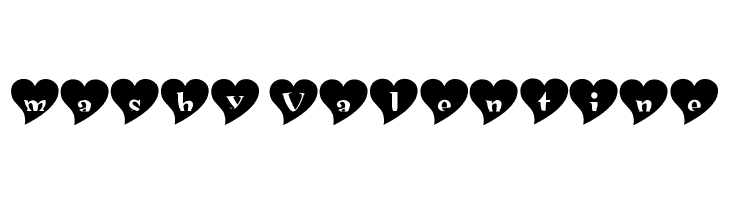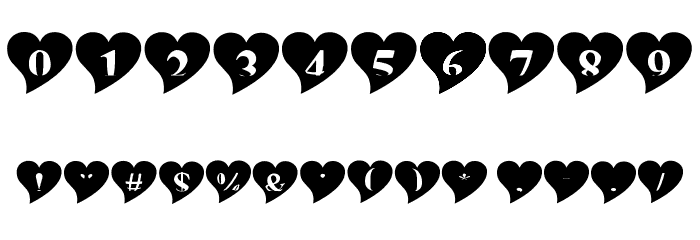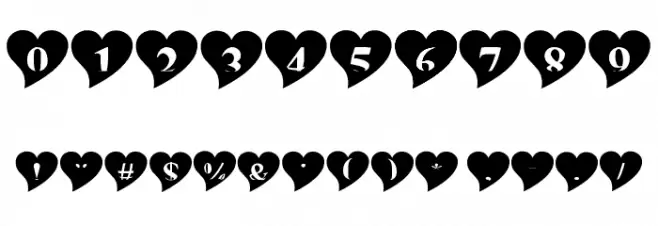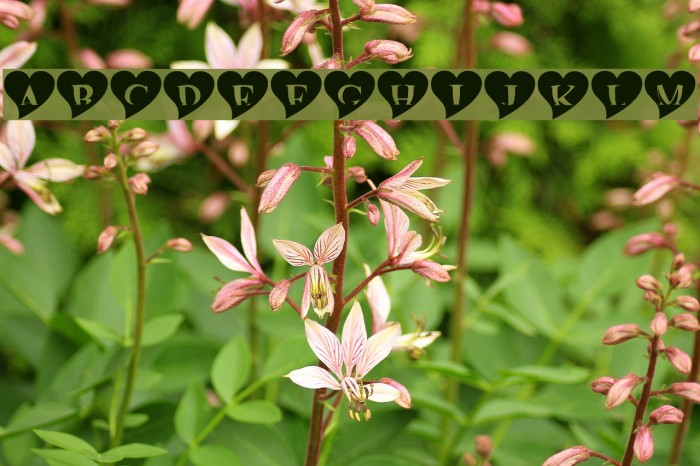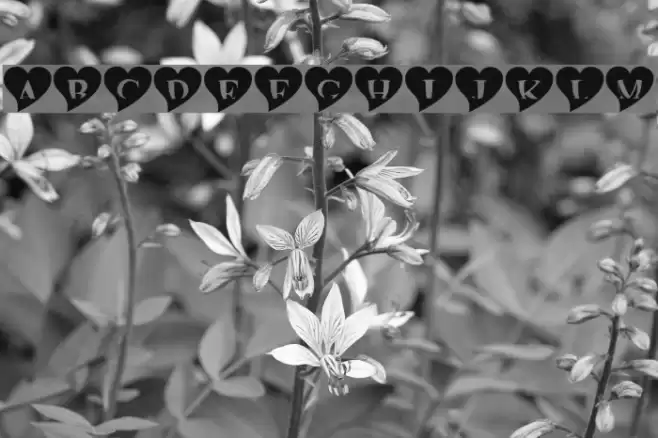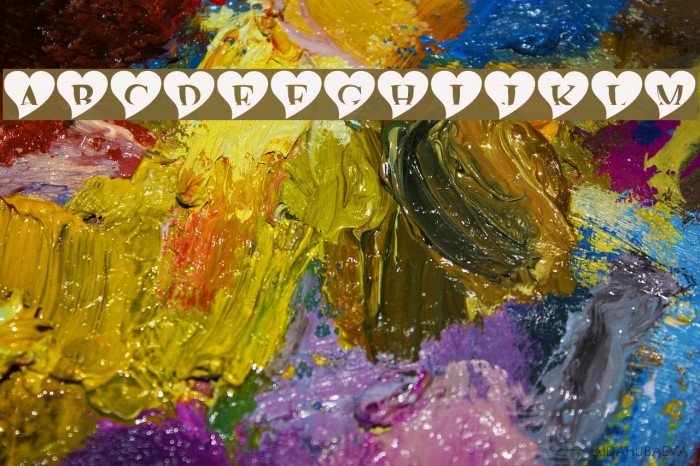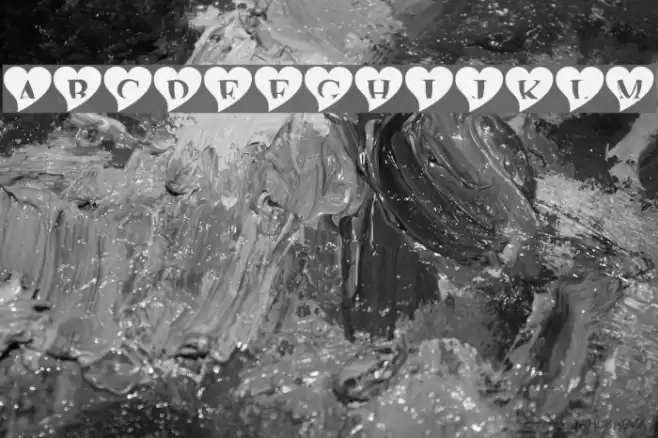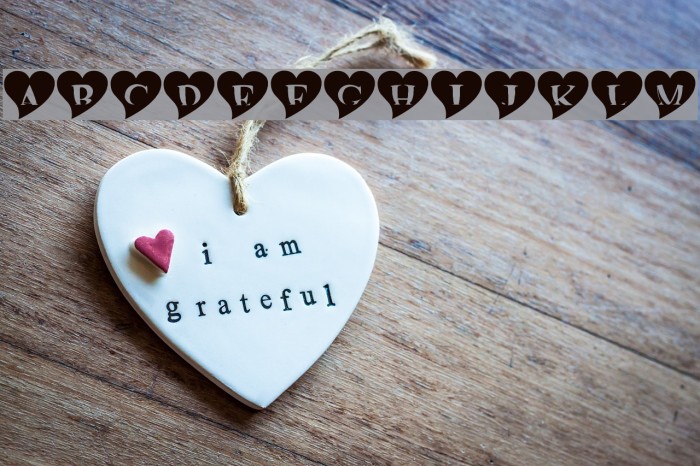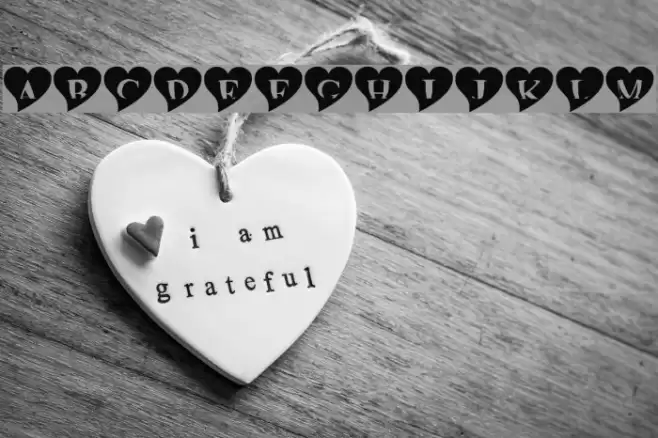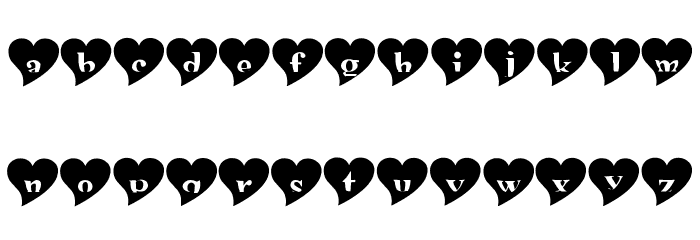
mashy Valentine Font
mashy Valentine Description
This playful and romantic font features each character enclosed within a heart shape, creating a whimsical and affectionate appearance. The letters are bold and slightly stylized, with a consistent heart motif that adds a decorative touch. The font maintains a uniform size and shape for each character, ensuring readability while emphasizing its unique design. The heart shapes are filled, providing a solid background that enhances the visibility of the white letters within. This font is ideal for projects that aim to convey love, warmth, and charm, such as Valentine's Day cards, wedding invitations, or romantic-themed branding.
| Proposed Projects | Valentine's Day cards, wedding invitations, romantic branding, love-themed posters. |